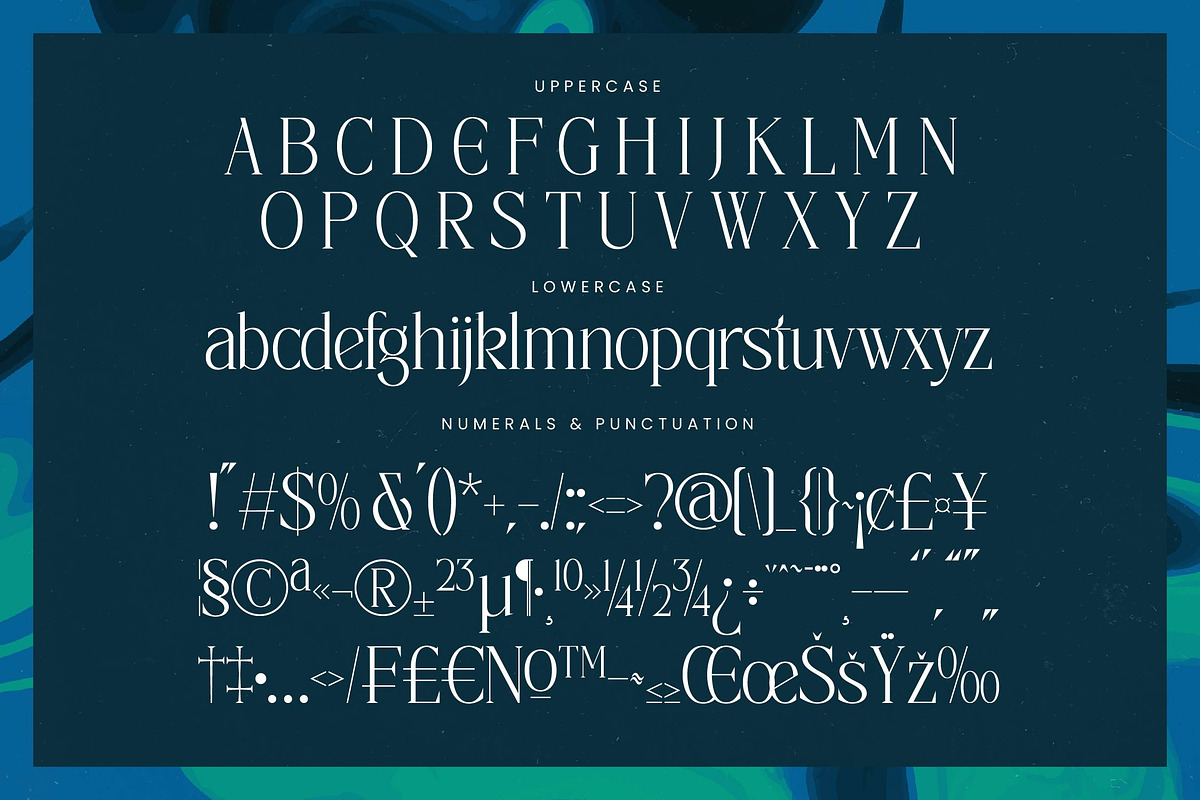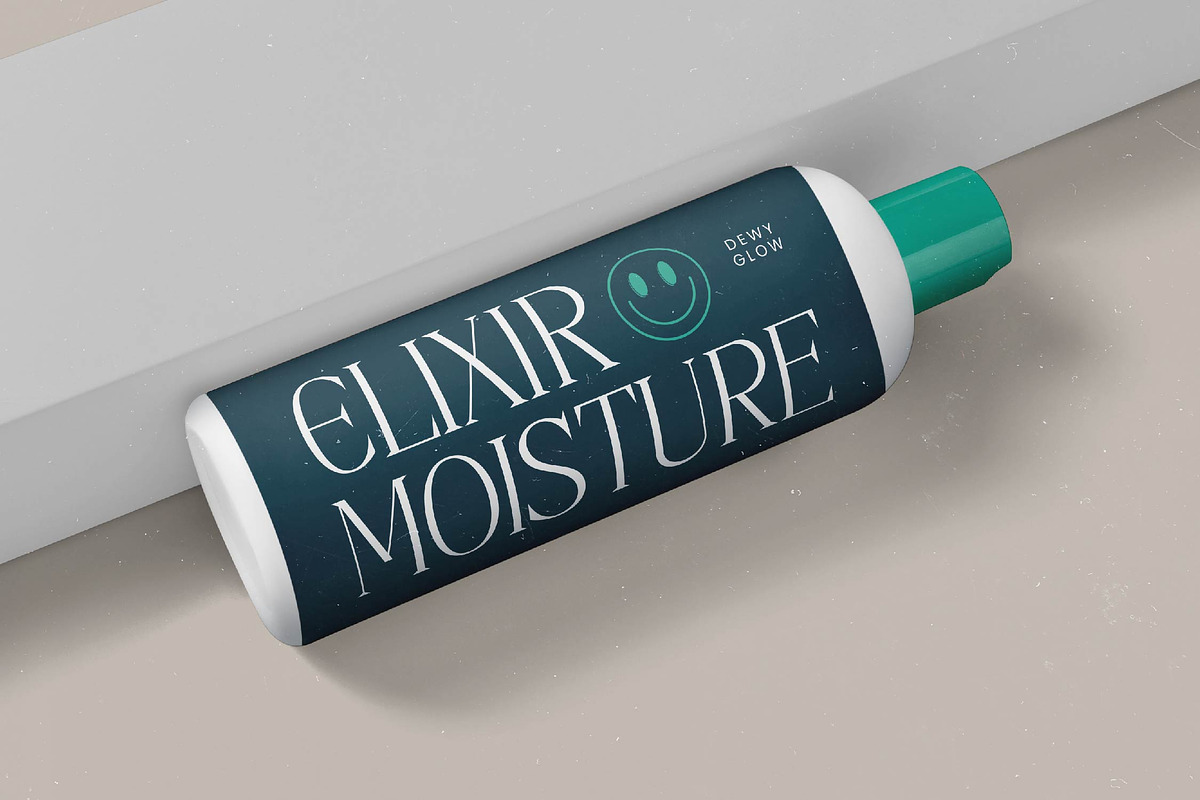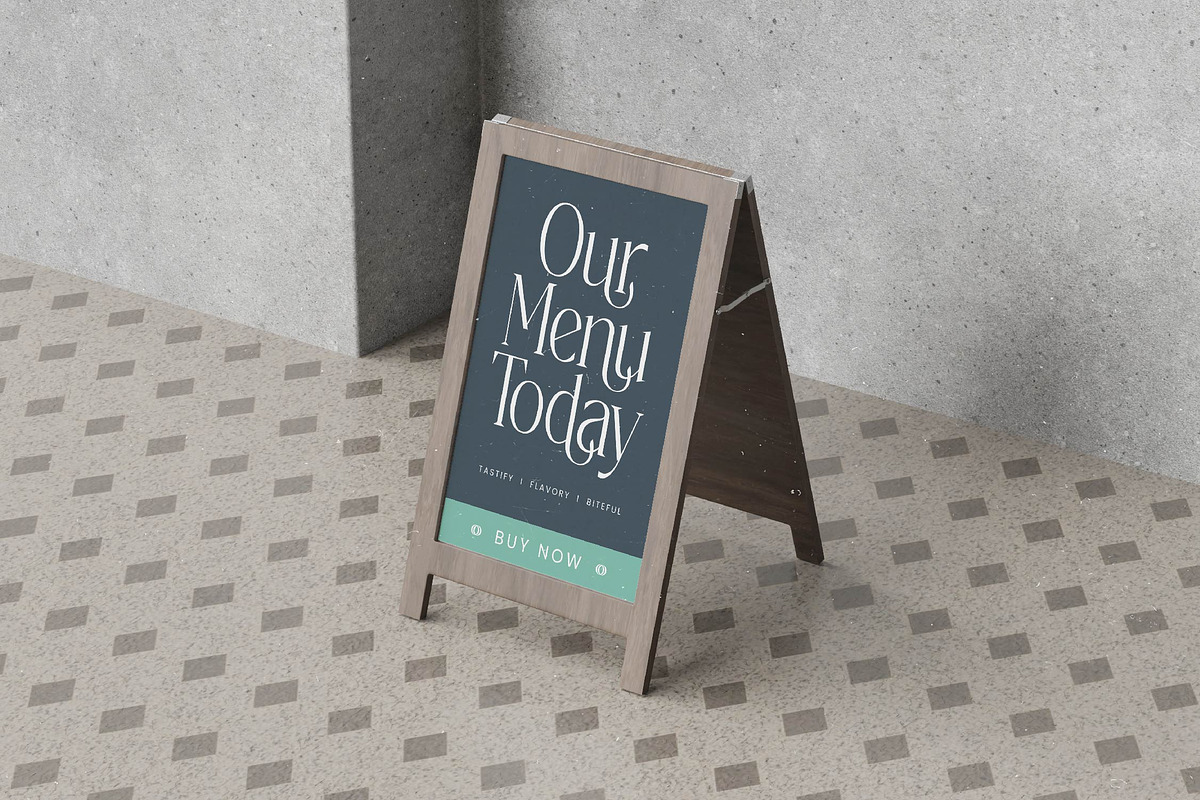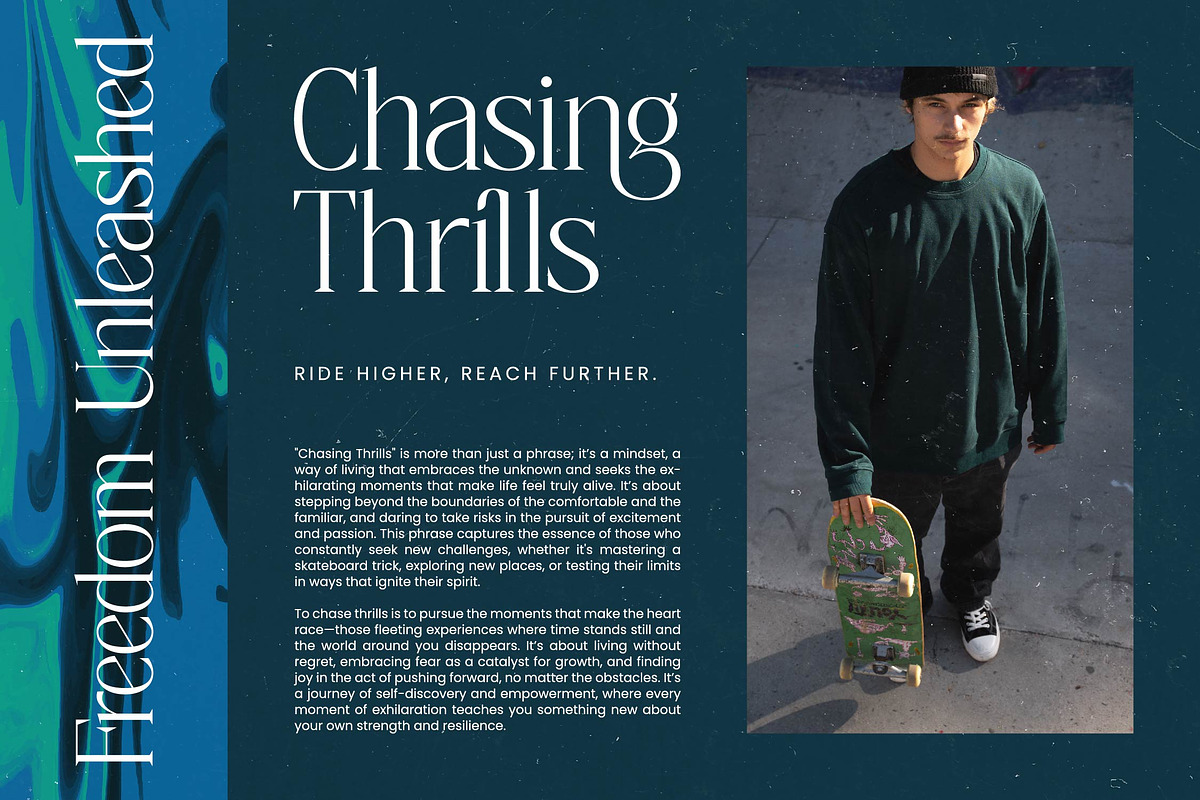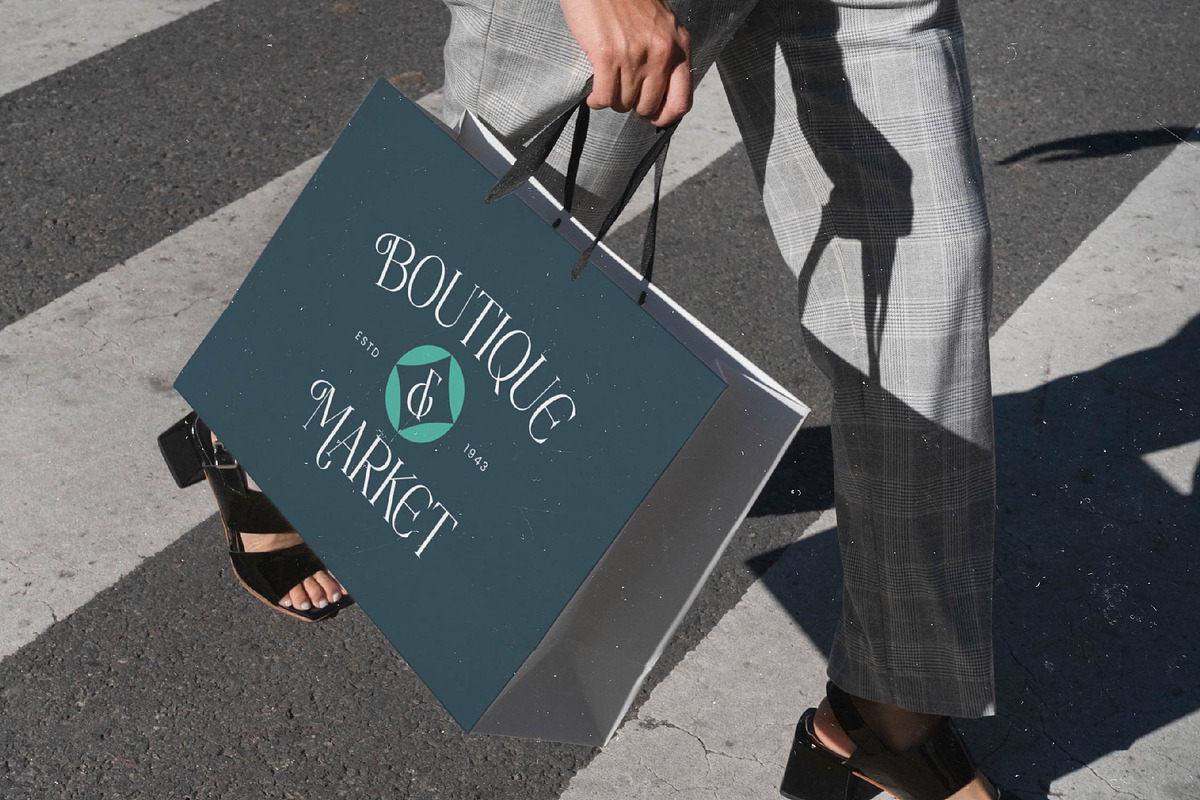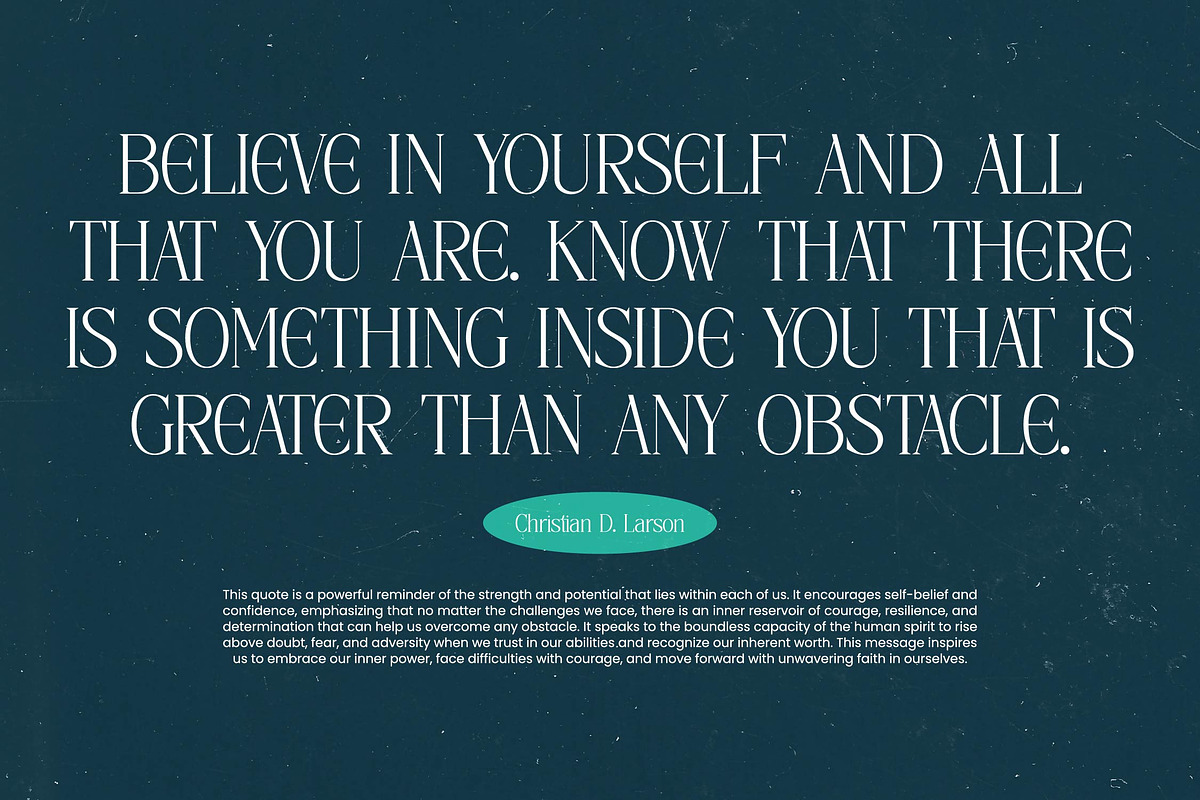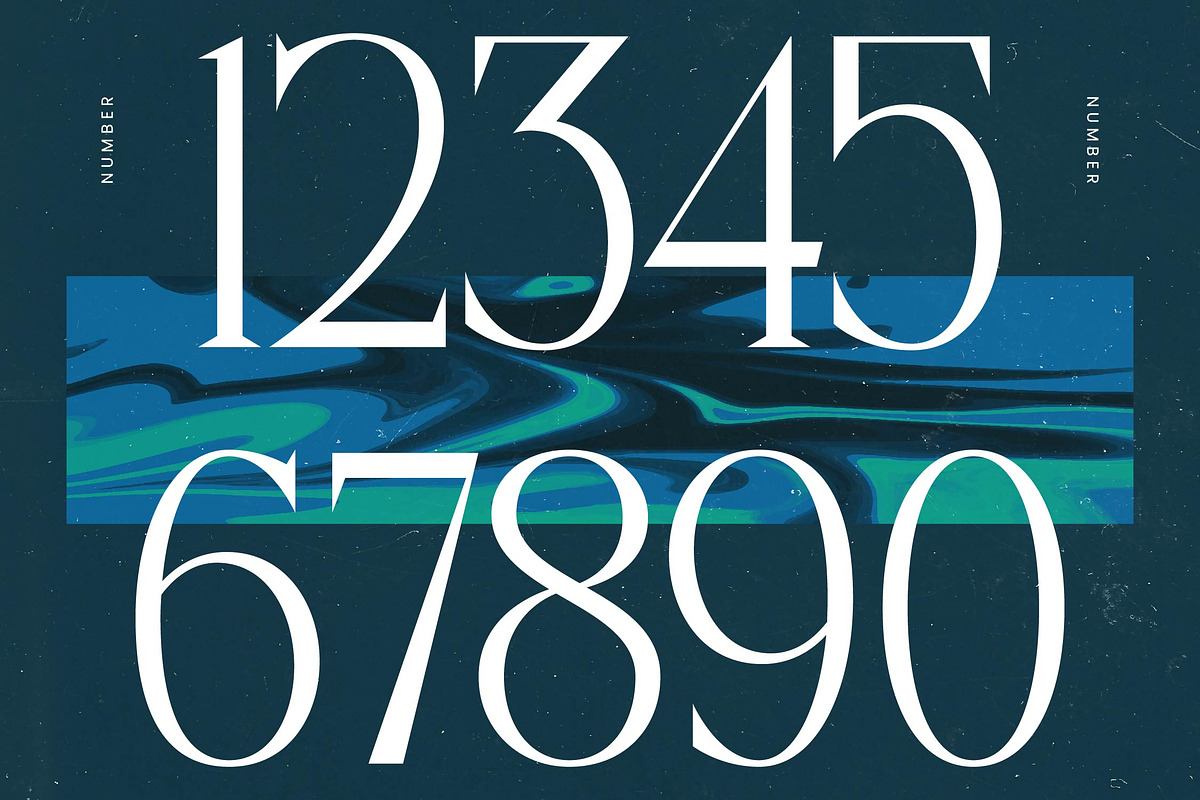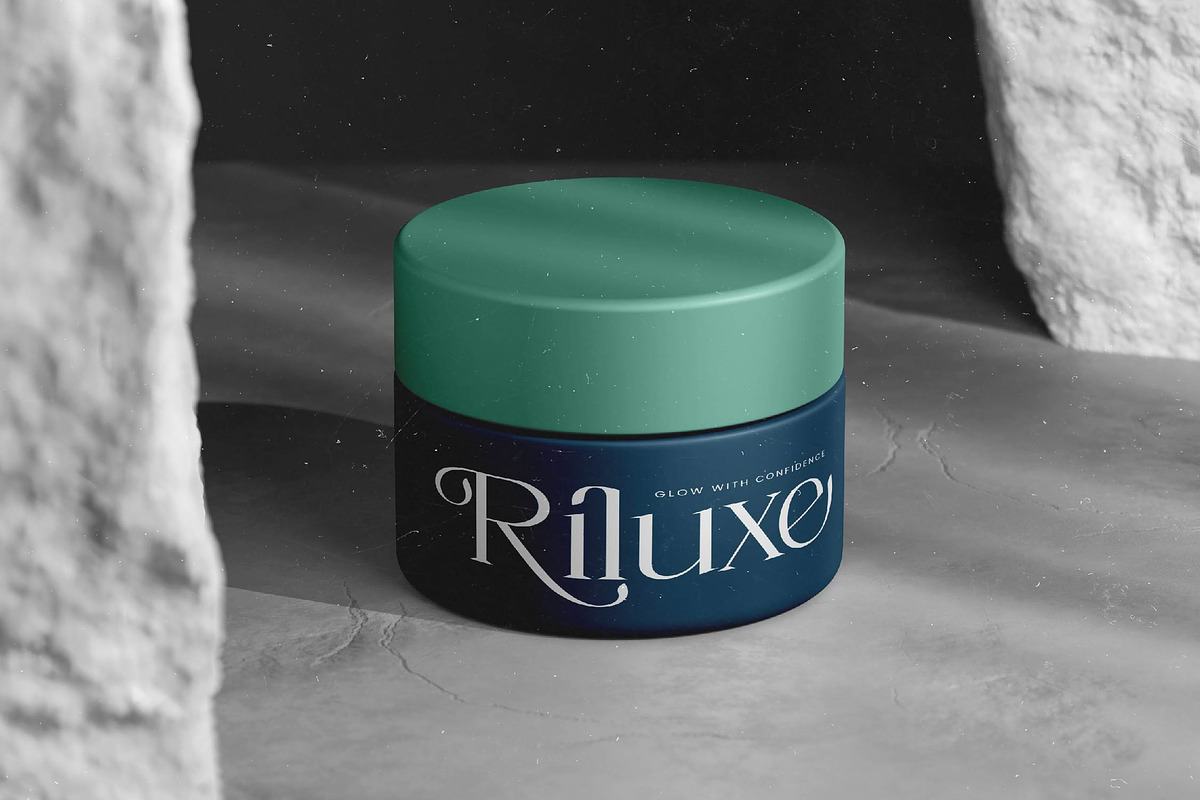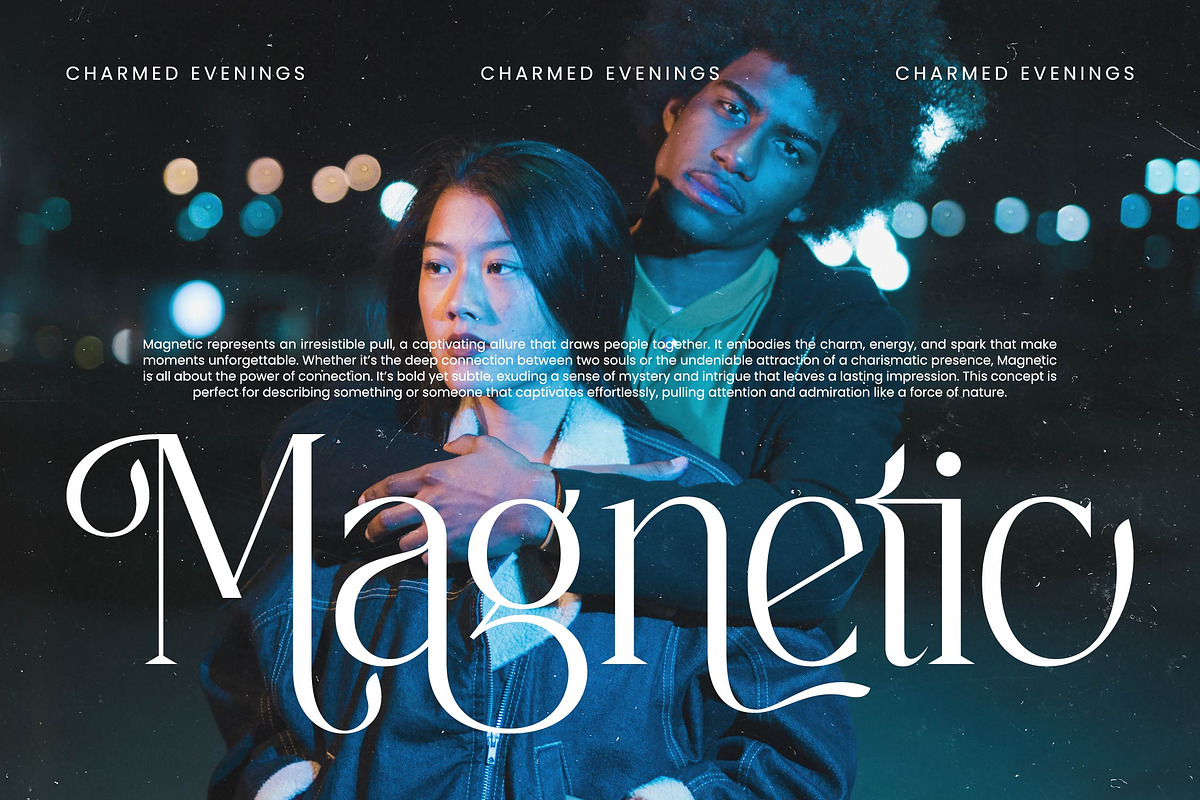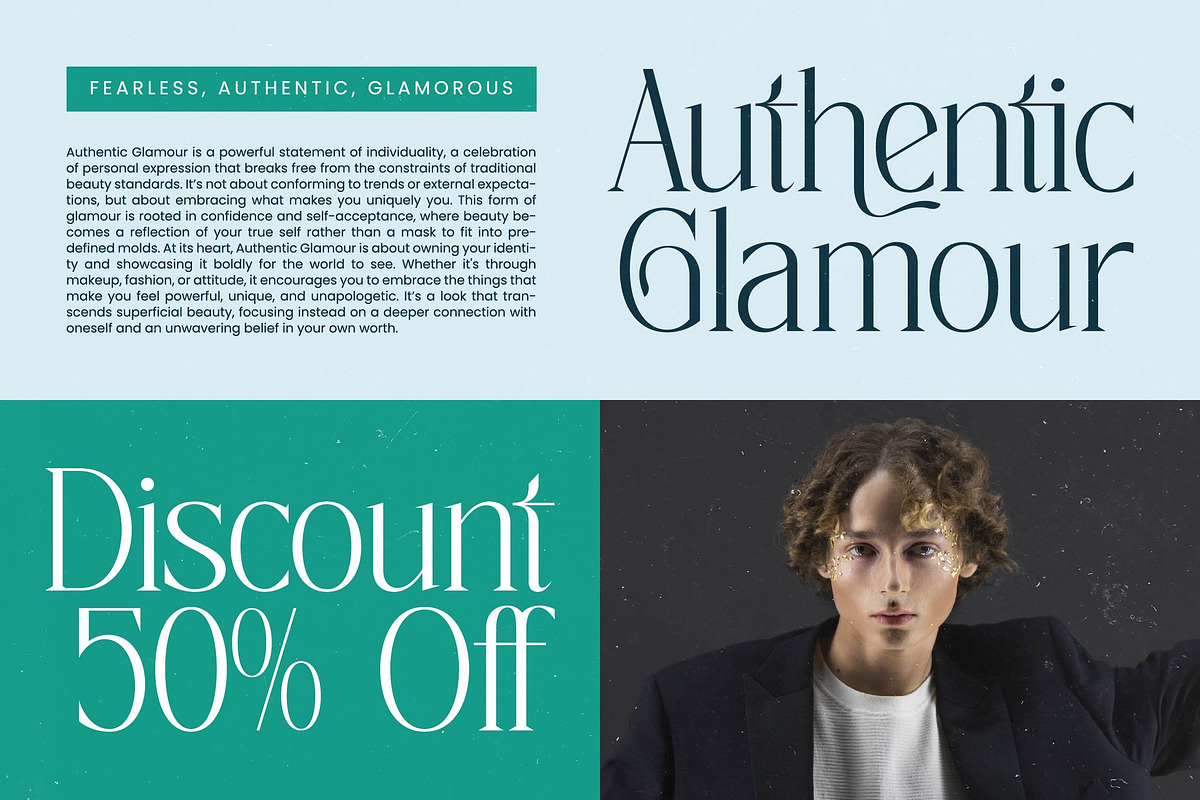
Painting Elegance Modern Serif
Painting Elegance is a visual symphony of sophistication designed to elevate your creative canvas with its ethereal presence. This typeface captures a rare balance of timeless grace and contemporary flair, ensuring every word resonates with an air of high-end distinction.
Drawing inspiration from the fluid motion of ink on canvas and the structured beauty of classical architecture, this font embodies a dance between organic curves and sharp, refined lines. Its tall proportions and delicate details evoke the atmosphere of a prestige art gallery where every element is curated for maximum visual impact.
Exuding a refined aura, this modern serif display provides an unmatched luxury typography experience for designers seeking a high-contrast serif with soul. It functions as a powerful editorial font that transforms standard layouts into masterpieces, delivering a significant branding impact through its unique character and polished finish.
Perfectly aligned with the modern serif trend, this typeface addresses the growing demand for editorial display fonts that feel personal and handcrafted yet professional. It stands at the forefront of character-driven typography, offering a refreshing alternative to sterile digital faces by infusing warmth and artistic texture into digital and print spaces alike.
This versatile tool is the ultimate choice for high-stakes logo design and comprehensive corporate branding projects that require a touch of class. From high-fashion editorial spreads and premium product packaging to bespoke wedding invitations and fashion lookbooks, it adapts seamlessly to various aesthetic environments.
The font package is rich with professional features, including 16 unique ligatures and 64 expressive alternates that allow for custom typographic flourishes. Full support for swashes and a comprehensive range of multilingual assets ensures that these international characters meet the needs of a global design market.
- Ligature 16 Alternate 64